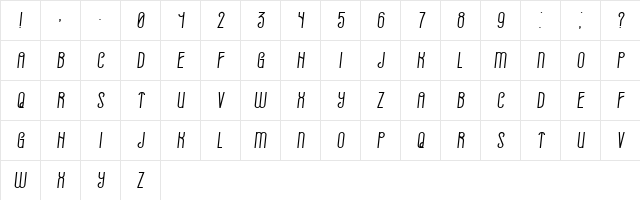
Already Book Italic
Style: Book Italic
Design Context for Already
Already is a composed and adaptable typeface that performs quietly and consistently across a wide range of design contexts. The slanted form adds forward momentum and visual energy.
Pro Tip: Use Already for emphasis, pull quotes, and subheadings where its slanted energy can add rhythm to the layout.